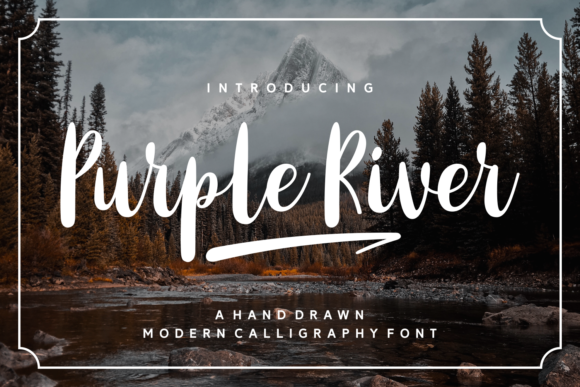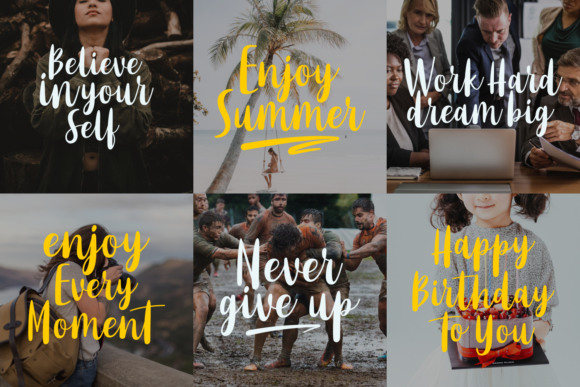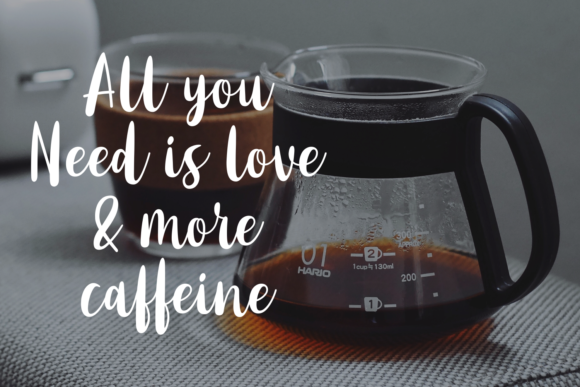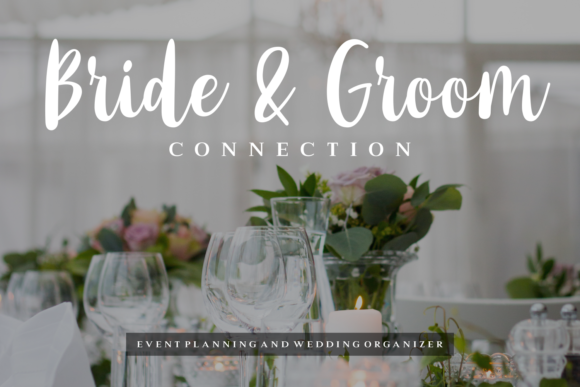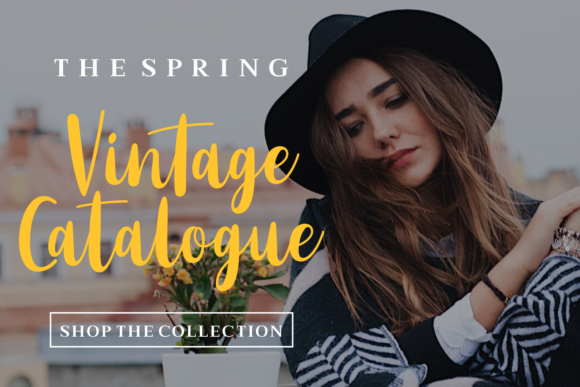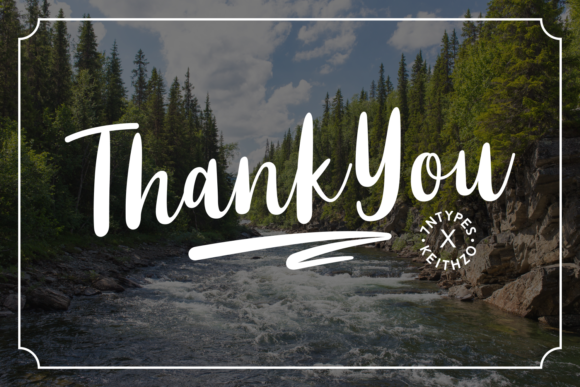
Purple River Font
About Purple River Font
Purple River is a hand-drawn, calligraphy font.
It’s smooth exterior, combined with it’s playful style create a modern fun font that will work in different types of projects.
The Purple River font is legible, and comes with alternative options.